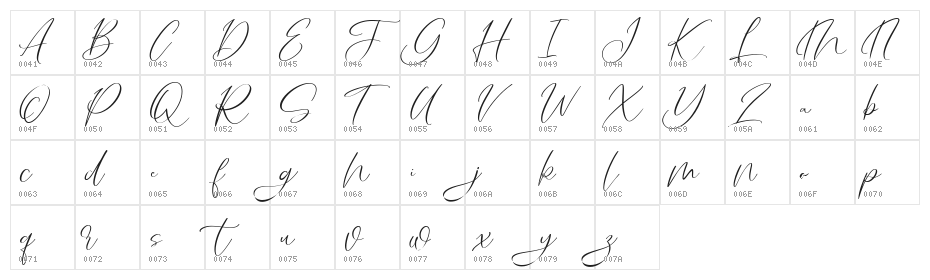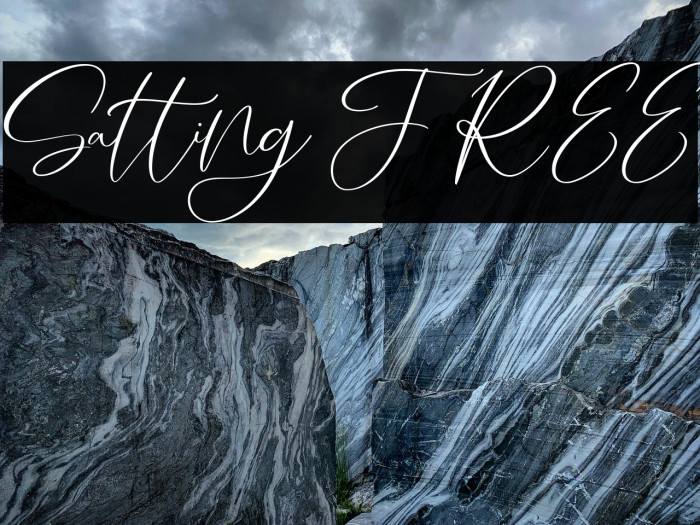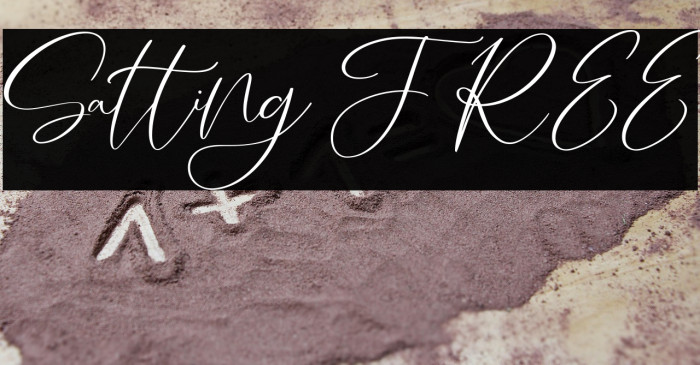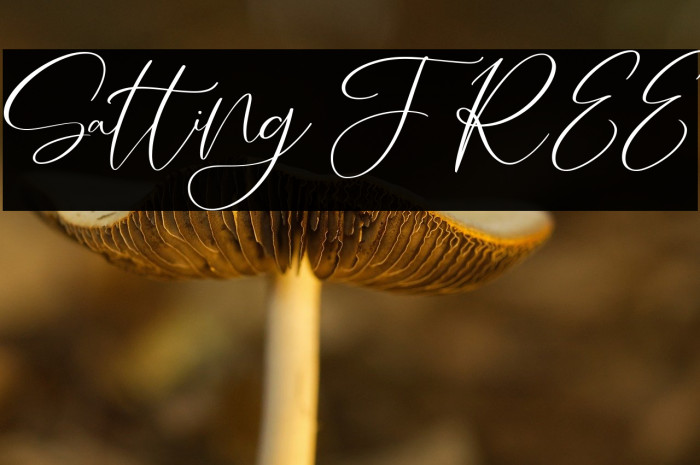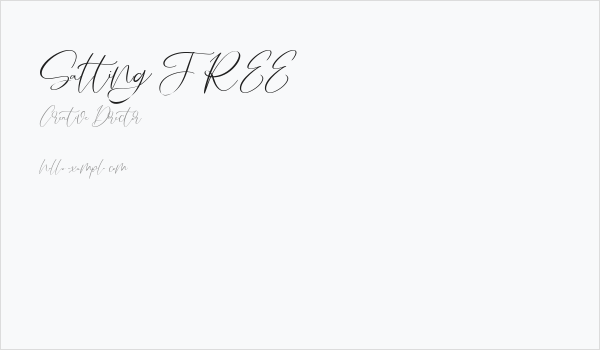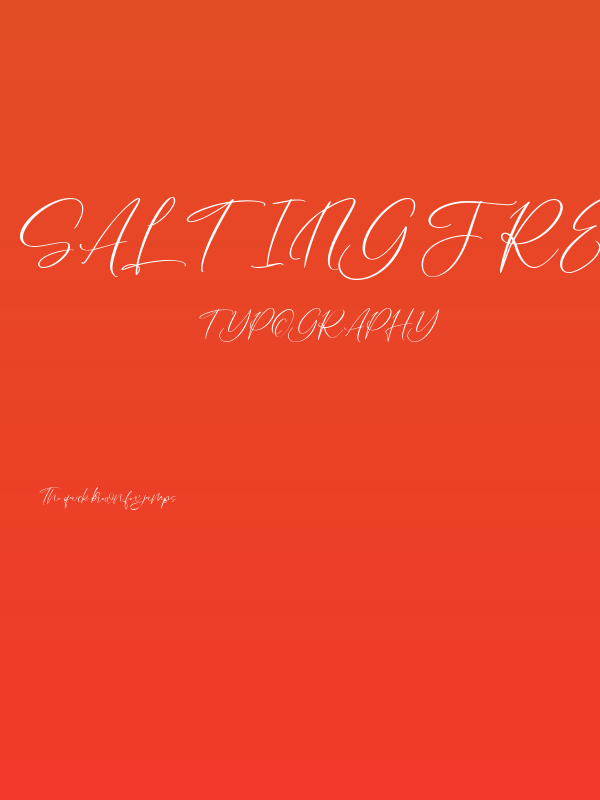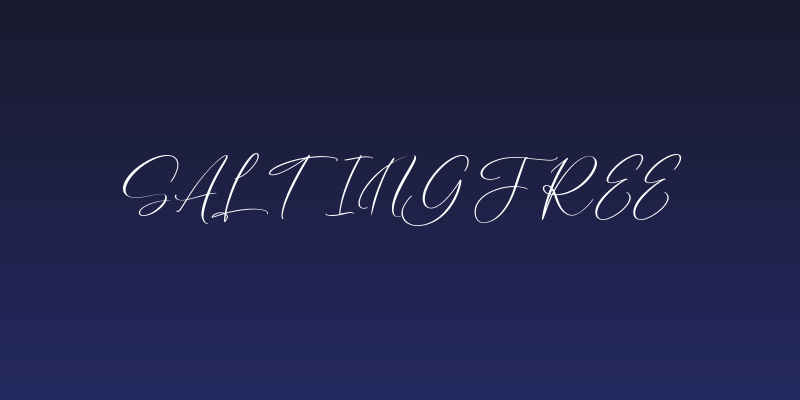
Salting FREE Font
Salting FREE Description
This elegant script font features a flowing, cursive style with delicate, sweeping lines and a graceful, handwritten appearance. The characters are interconnected, creating a seamless and fluid look. The uppercase letters are ornate and slightly larger, while the lowercase letters maintain a consistent height, enhancing readability. The font exudes sophistication and charm, making it ideal for formal invitations, branding, and decorative purposes. Its intricate design adds a touch of luxury and refinement to any project.
| Proposed Projects | Ideal for wedding invitations, luxury branding, greeting cards, and decorative signage. |